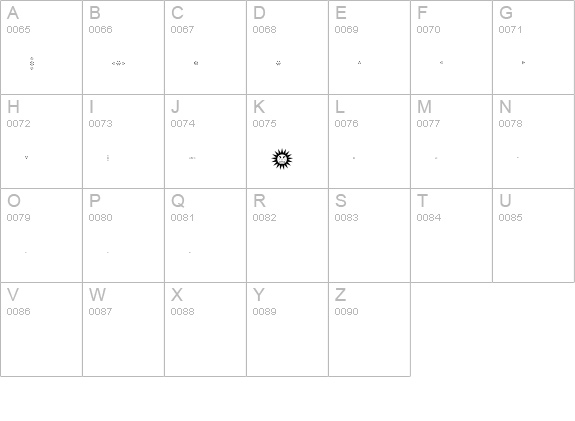
Hilda Sonnenschein Dingbats Font Details
Introducing the whimsical and captivating Hilda Sonnenschein Dingbats font - a delightful addition to any creative project. This font is a treasure trove of intricate and playful doodles, perfect for adding a touch of charm and character to your designs. Hilda Sonnenschein Dingbats font showcases a delightful collection of hand-drawn illustrations, ranging from quirky animals and whimsical objects to intricate patterns and decorative elements. Each character is meticulously crafted with a joyful and carefree spirit, making it a perfect choice for greeting cards, invitations, children's books, and so much more. What sets Hilda Sonnenschein Dingbats font apart is its versatility and ease of use. Whether you're a seasoned designer or a beginner, this font allows you to effortlessly incorporate its charming illustrations into your projects. Simply type a letter or a number, and watch as a delightful doodle appears on your screen, instantly bringing your design to life. And the best part? Hilda Sonnenschein Dingbats font is available for free! That's right, you can download this wonderful font at FontsMarket.com, without spending a dime. So why wait? Unleash your creativity and let Hilda Sonnenschein Dingbats font add a touch of whimsy to your next project. Download it now and embark on a journey of endless creative possibilities!